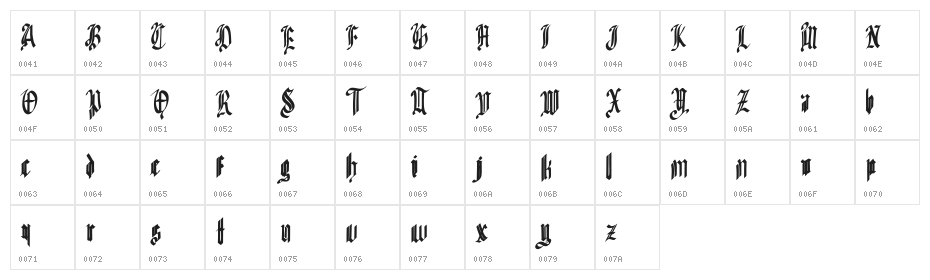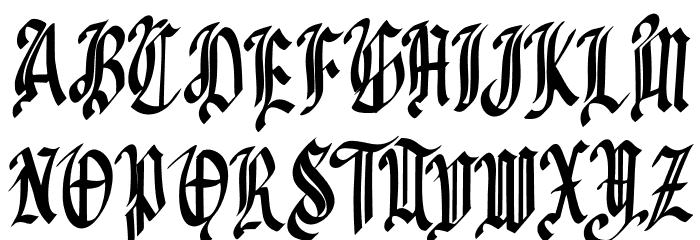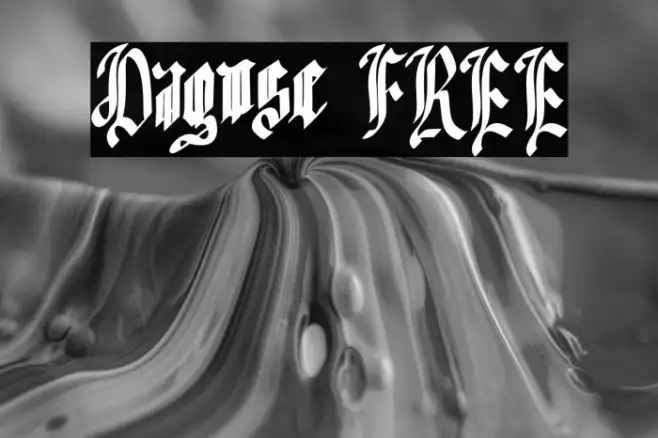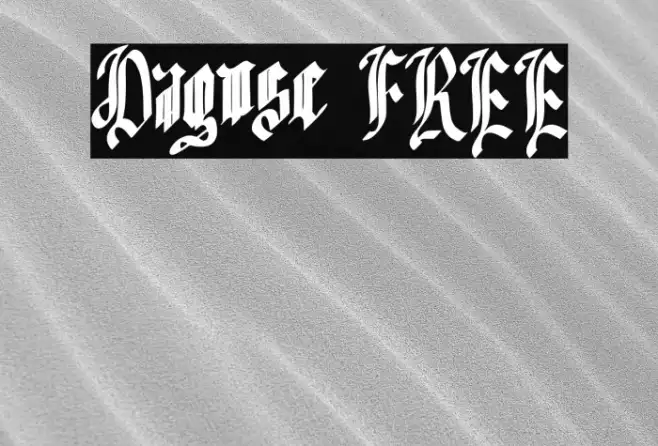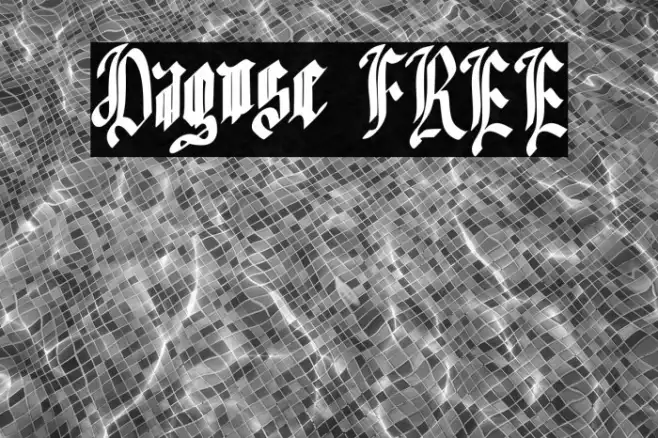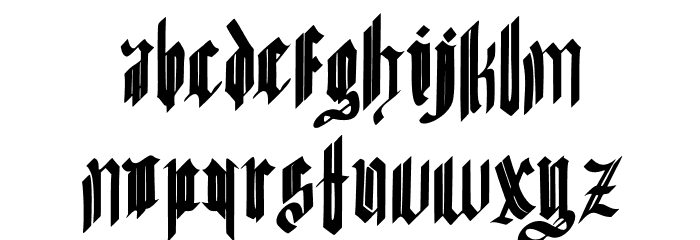
Dagose FREE Font
Dagose FREE Description
This font exhibits a classic blackletter style, characterized by its intricate and ornate letterforms. The uppercase letters are bold and dramatic, with sharp angles and elaborate serifs that give them a gothic appearance. The lowercase letters maintain the same decorative style, with a consistent stroke width that enhances readability while preserving the font's historical aesthetic. The numbers and special characters are designed to match the overall theme, making the font suitable for projects that require a traditional and formal look. Its detailed and artistic design makes it ideal for creating a strong visual impact.
| Use Case | Headlines, Logos, Decorative text |
| Proposed Projects | Ideal for certificates, invitations, historical documents, and branding that requires a traditional or gothic touch. |